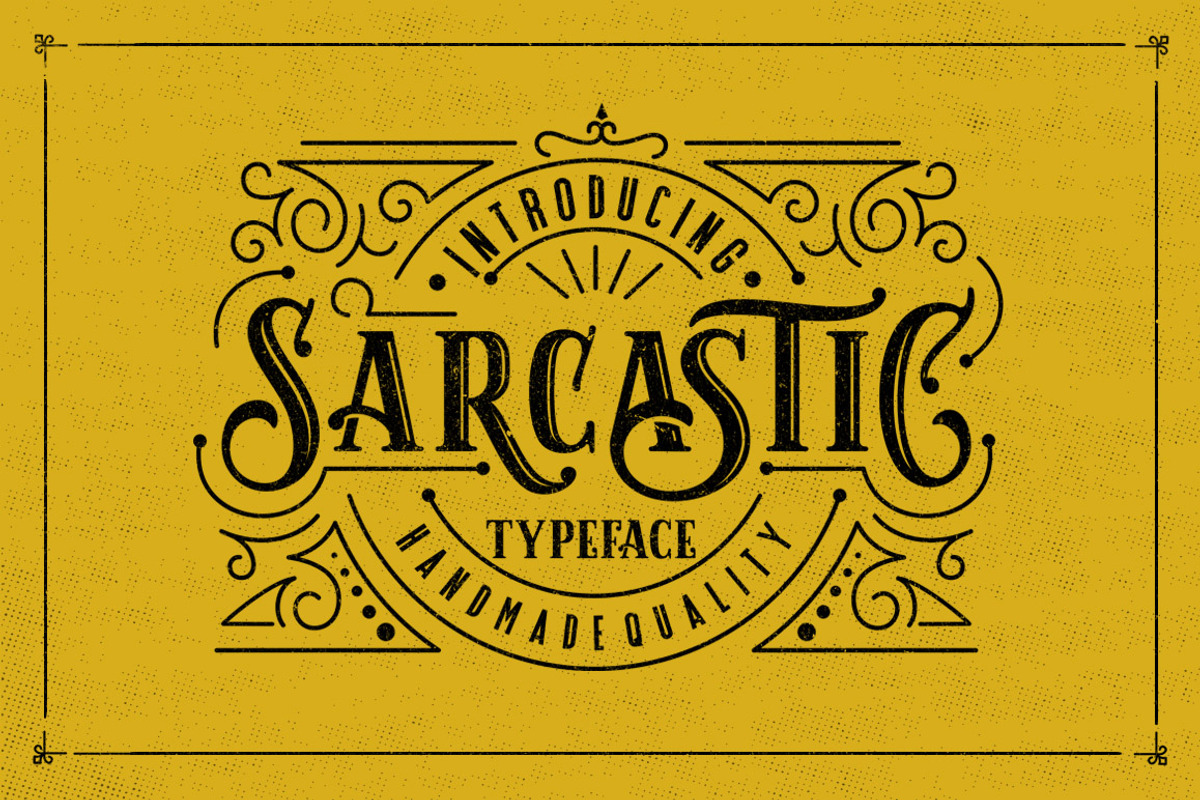
Sarcastic Typeface + Extras
Sarcastic Typeface + Extras by Graptail is a font selected for branding, posters, packaging, typography.
- Sarcastic comes with uppercase, lowercase, numerals, punctuations and so many variations on each characters include opentype alternates, com
- OPENTYPE FEATURES Swash Standard Ligatures Contextual Alternates Stylistic Alternates All Alternates This font works best with open-type fri
Why Sarcastic Typeface + Extras is worth a look
Sarcastic Typeface + Extras by Graptail fits naturally into Branding, posters, packaging, typography.